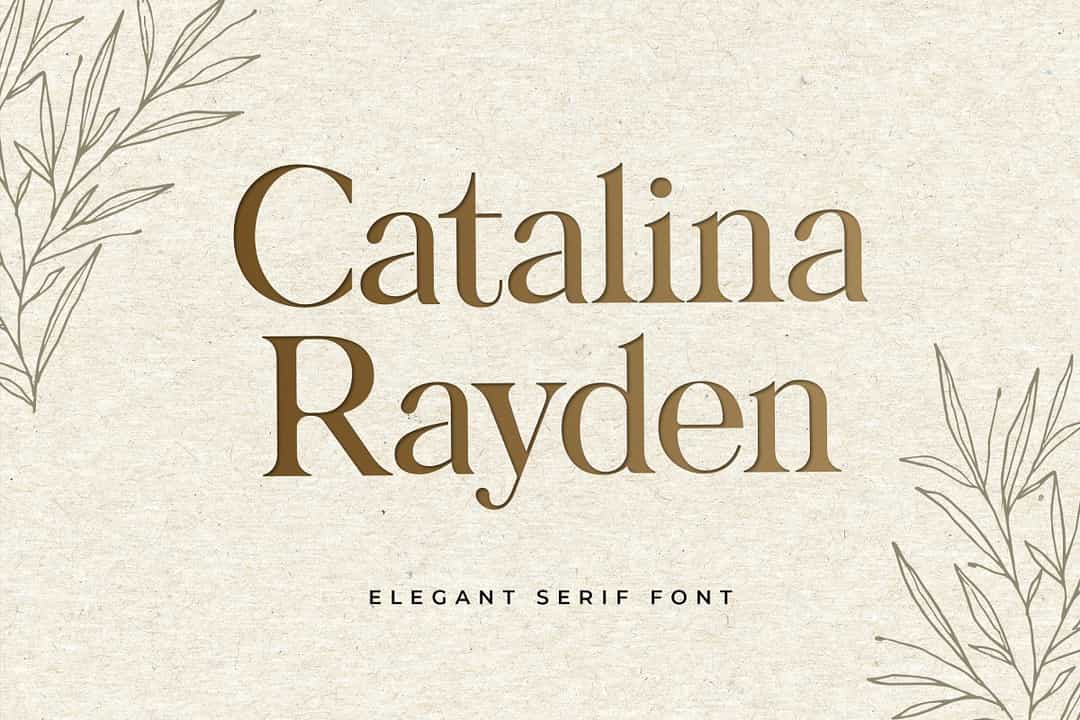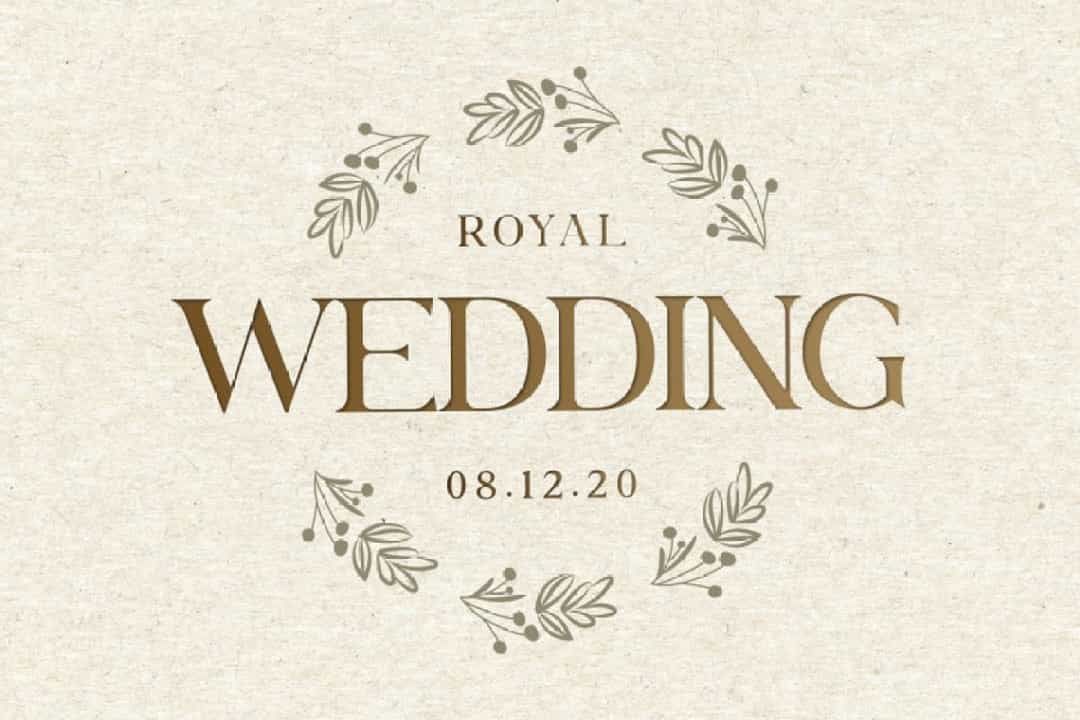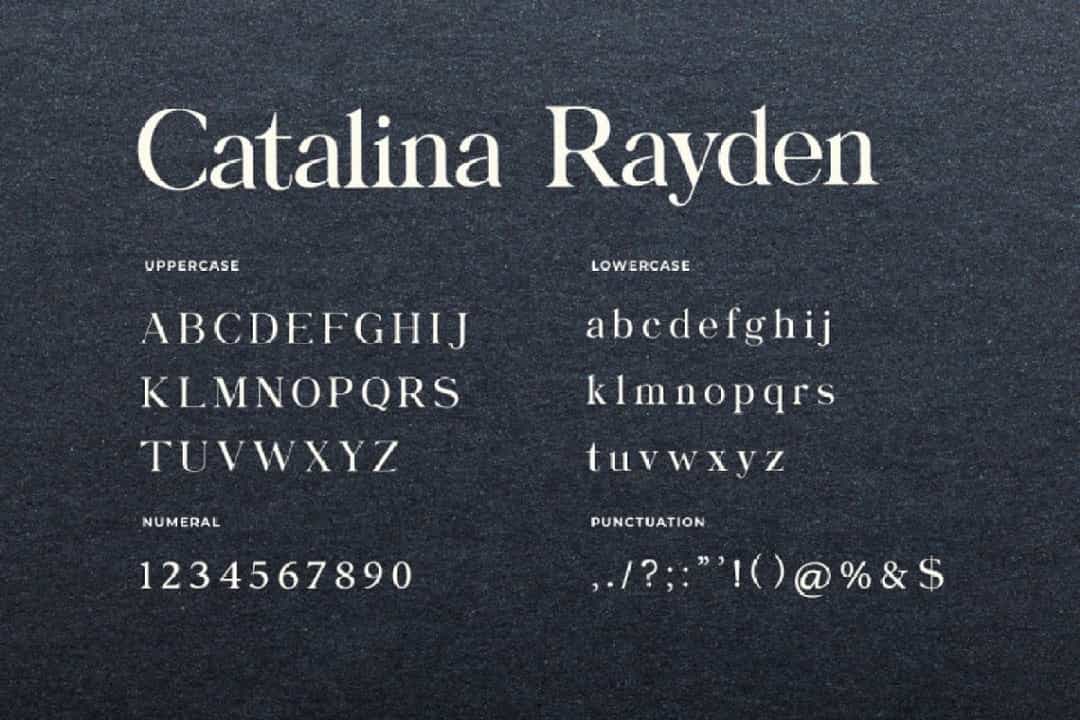
Discover Catalina Rayden Font, part of the Serif collection—a versatile and unique font perfect for adding a personal touch to your projects. Download it for free and enjoy crafting designs with style, from invitations to social media posts. This font is available exclusively for personal use, giving you the freedom to create without limits. Unlock your creativity with Catalina Rayden Font today!
Catalina Rayden can be described as a modern and stylish serif font. Characterized by its sleek curves, Catalina Rayden makes for the ideal editorial or fashion designs – you’re sure to enjoy its use when designing with it! Easily incorporate Catalina Rayden into your designs for stunning results.